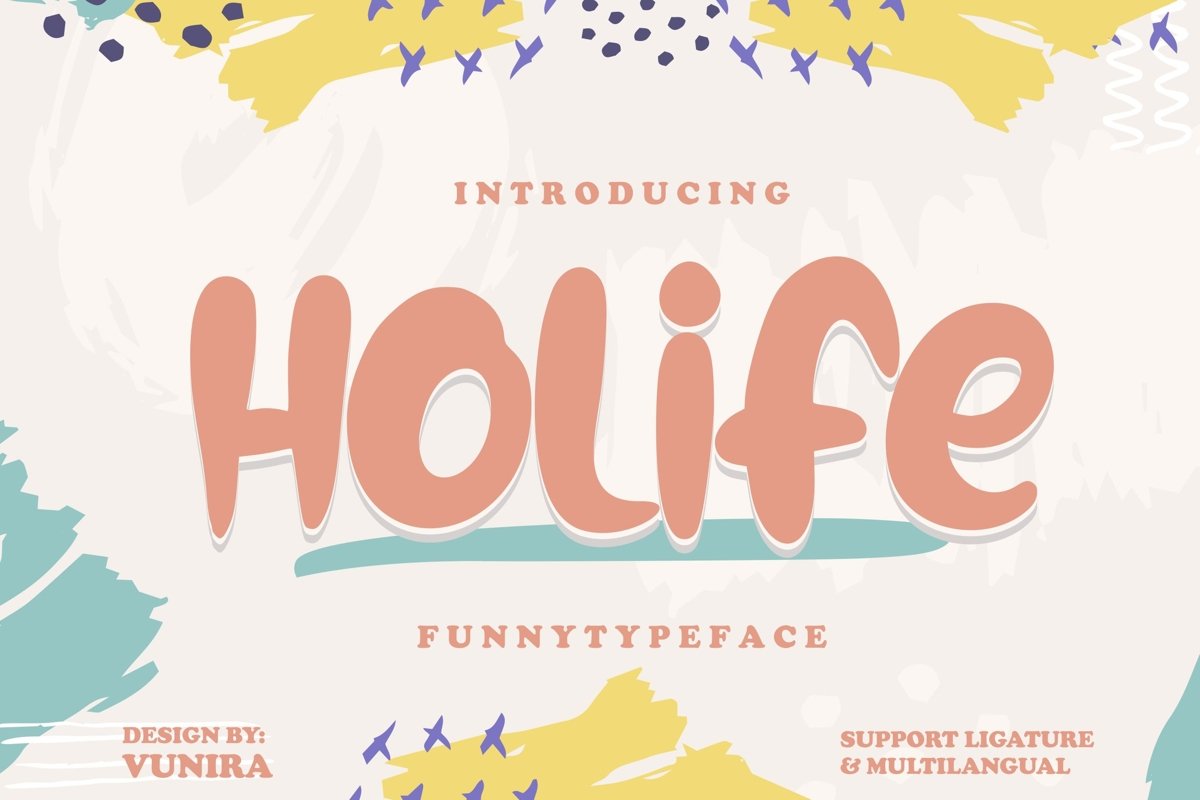
Holife | Funny Typeface Font
Holife
**Holife | Funny Typeface Font** with a calligraphy style, So beautiful on invitation like greeting cards, branding materials, business cards, quotes, posters, and more!
* Alternates and Ligatures
* Fonts include **Multilingual Support**